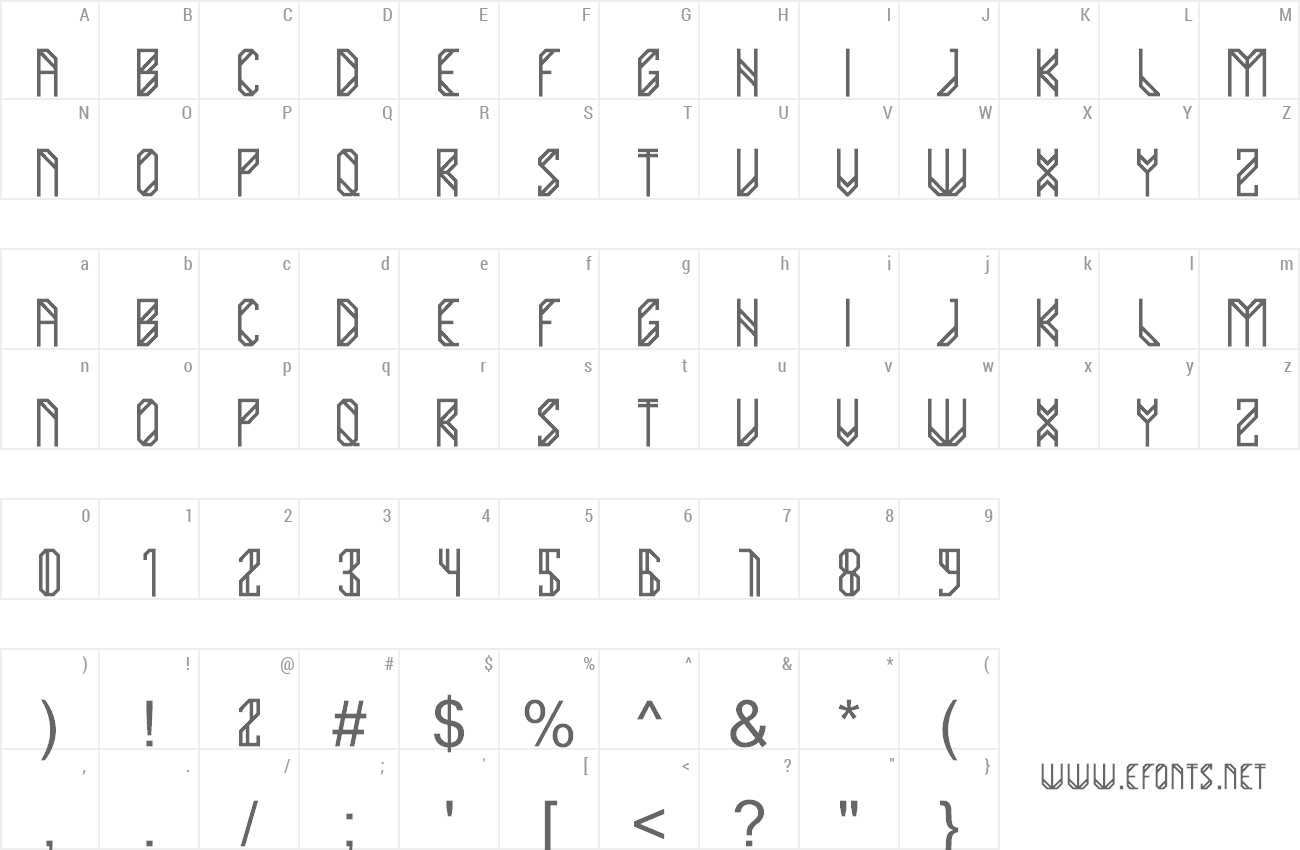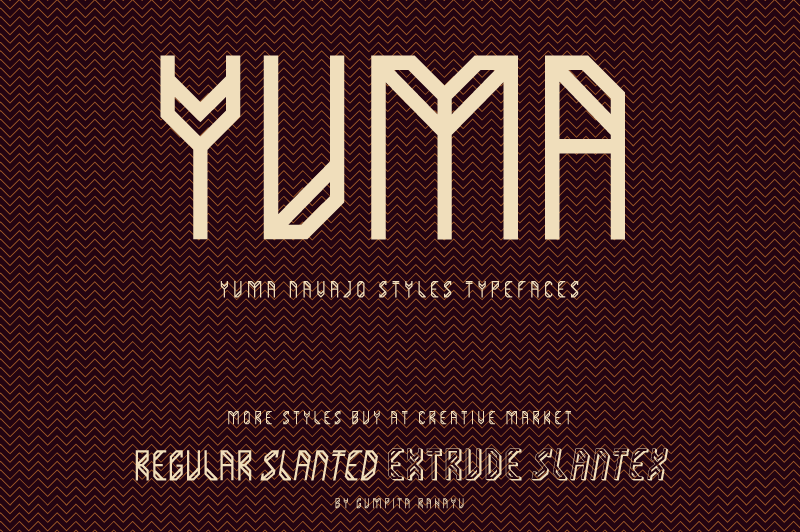
| Font name: | Yuma |
| Author: | G |
| Note by G | |
Yuma is experimental fonts with straight glyph, inspired with typical Navajo textiles who have strong geometric patterns. these fonts are specifically designed for display type for titles, headlines, posters, and perfect with T-shirt Designs. Buy all of Yuma Typeface styles & Commercial License at http://crtv.mk/eLJ7 www.behance.net/gumpita |